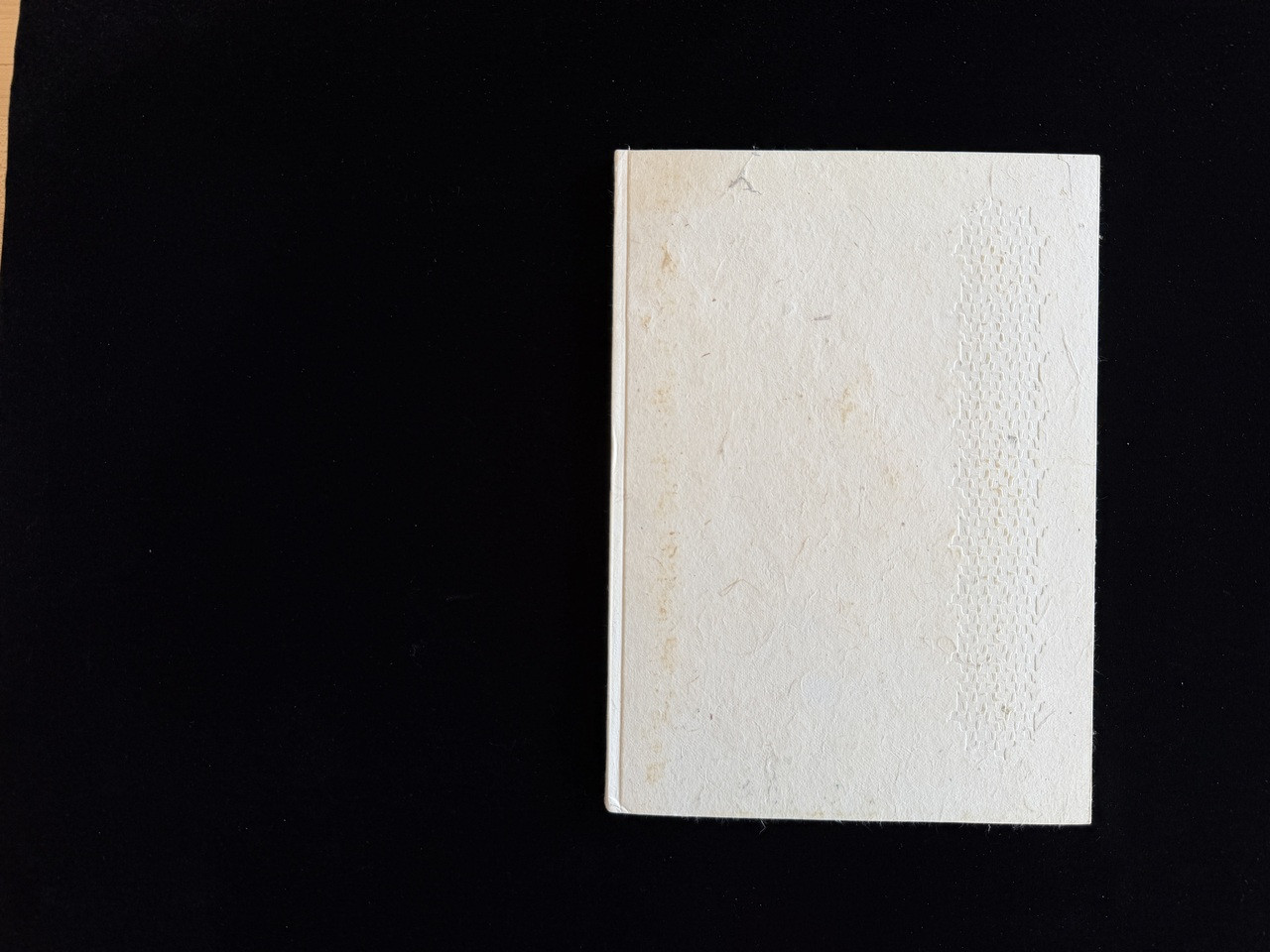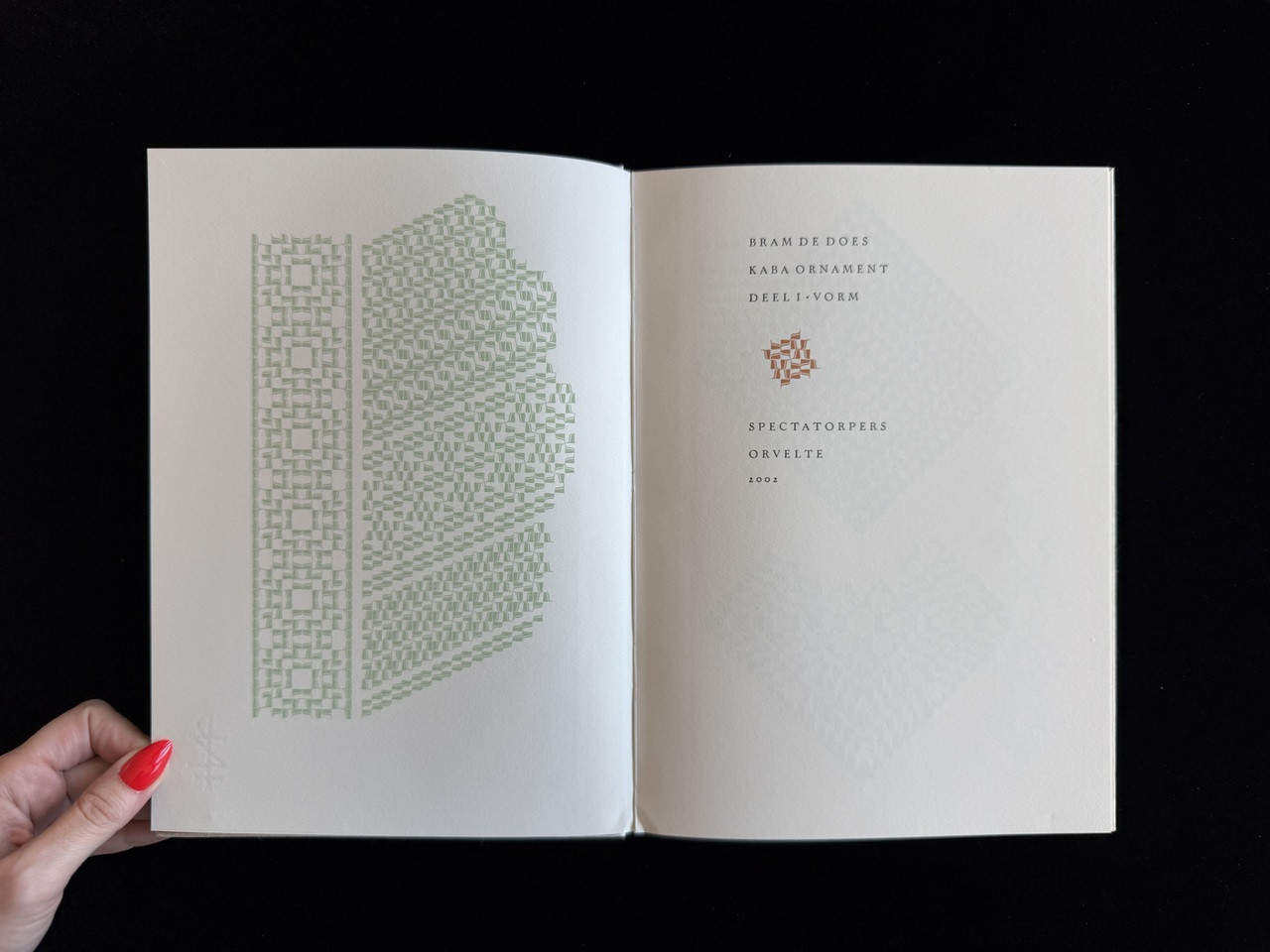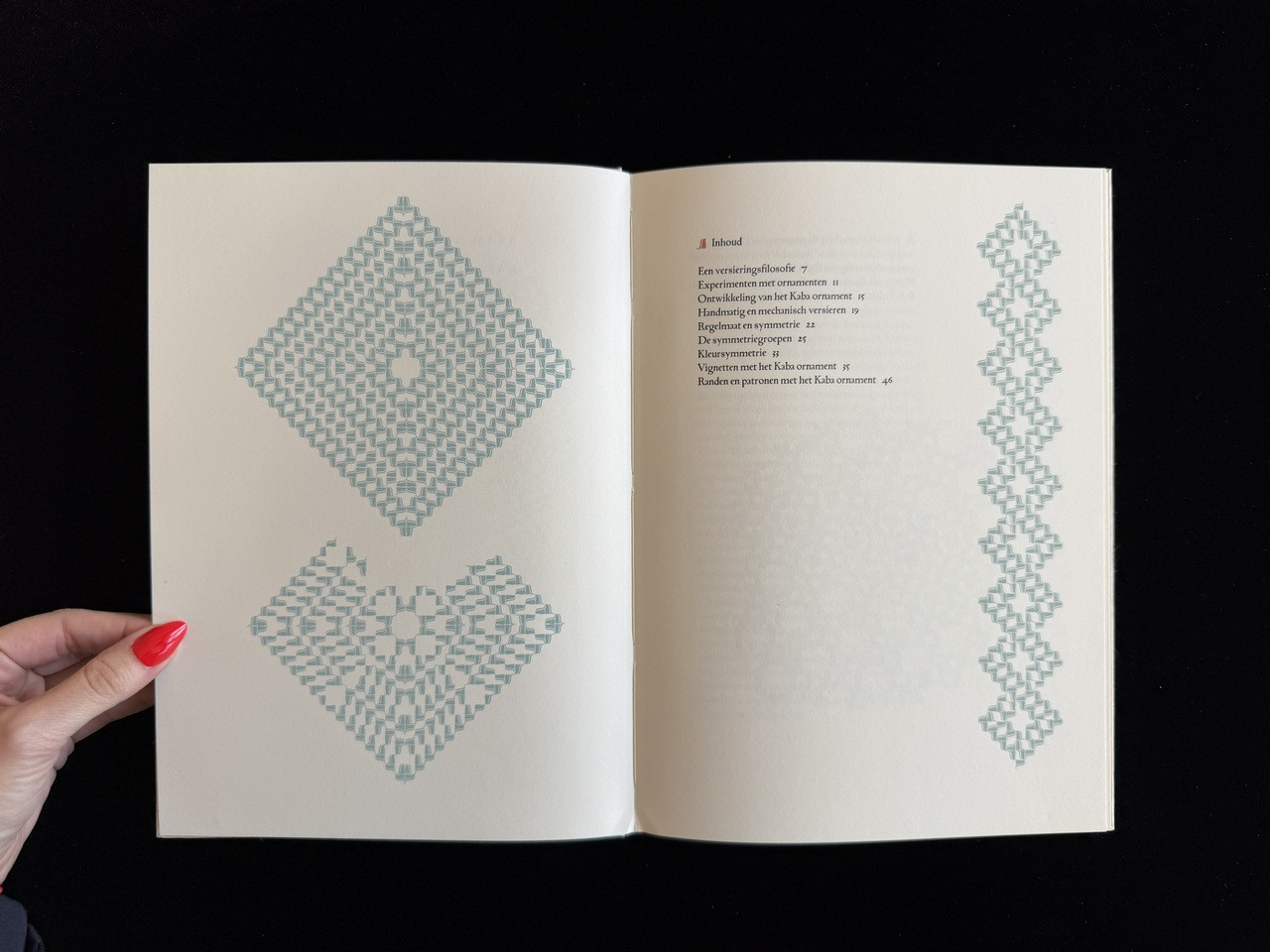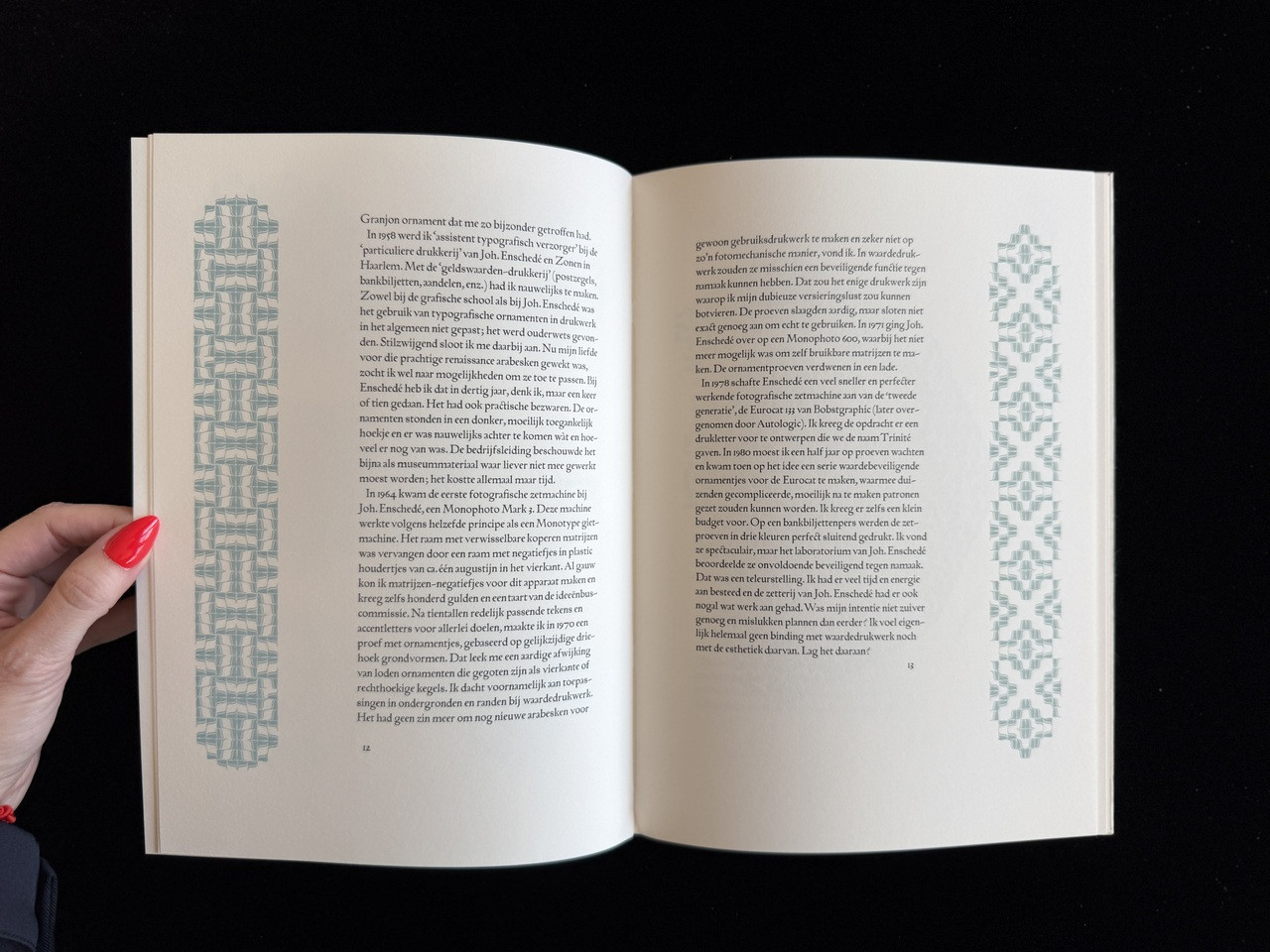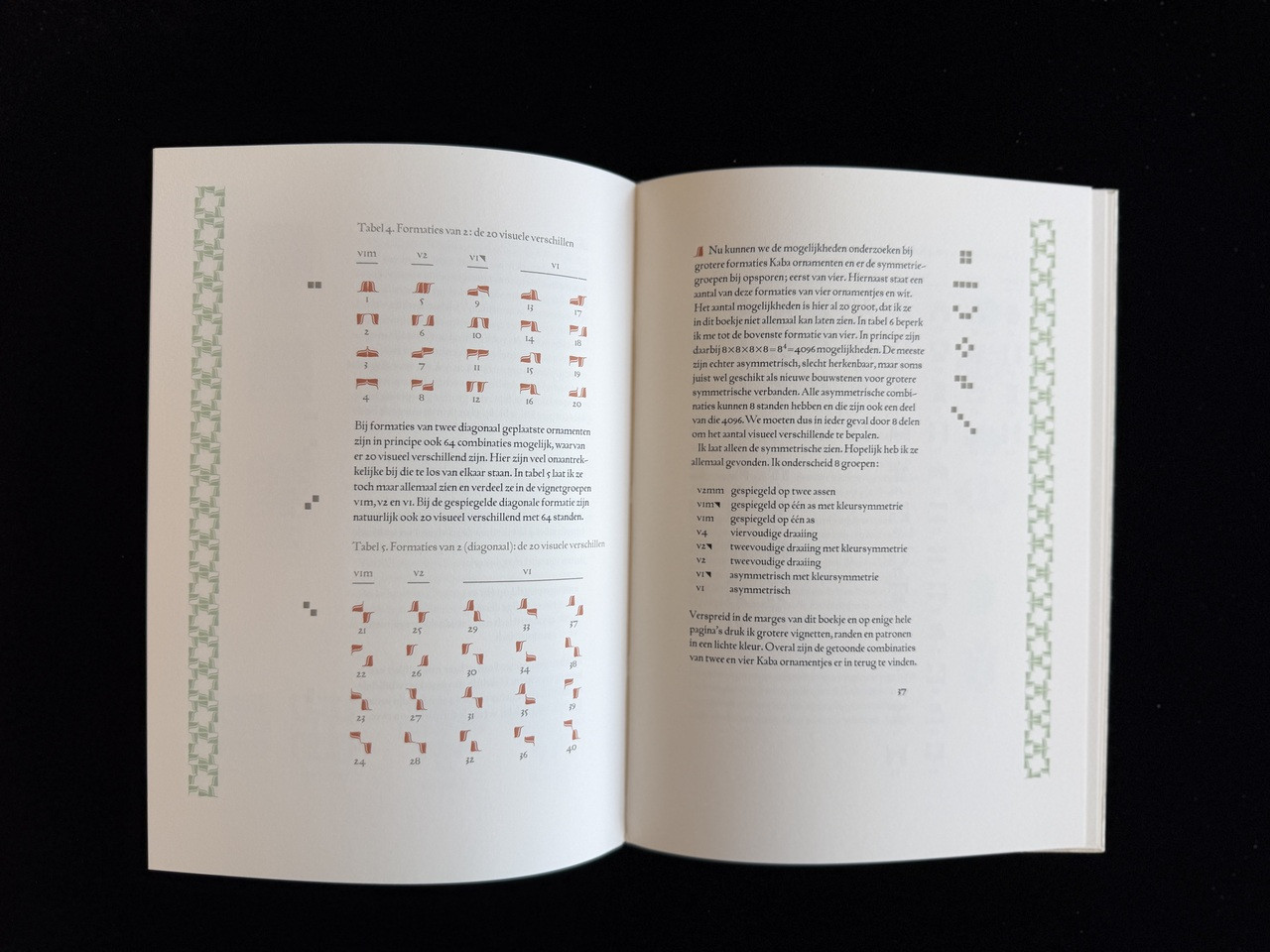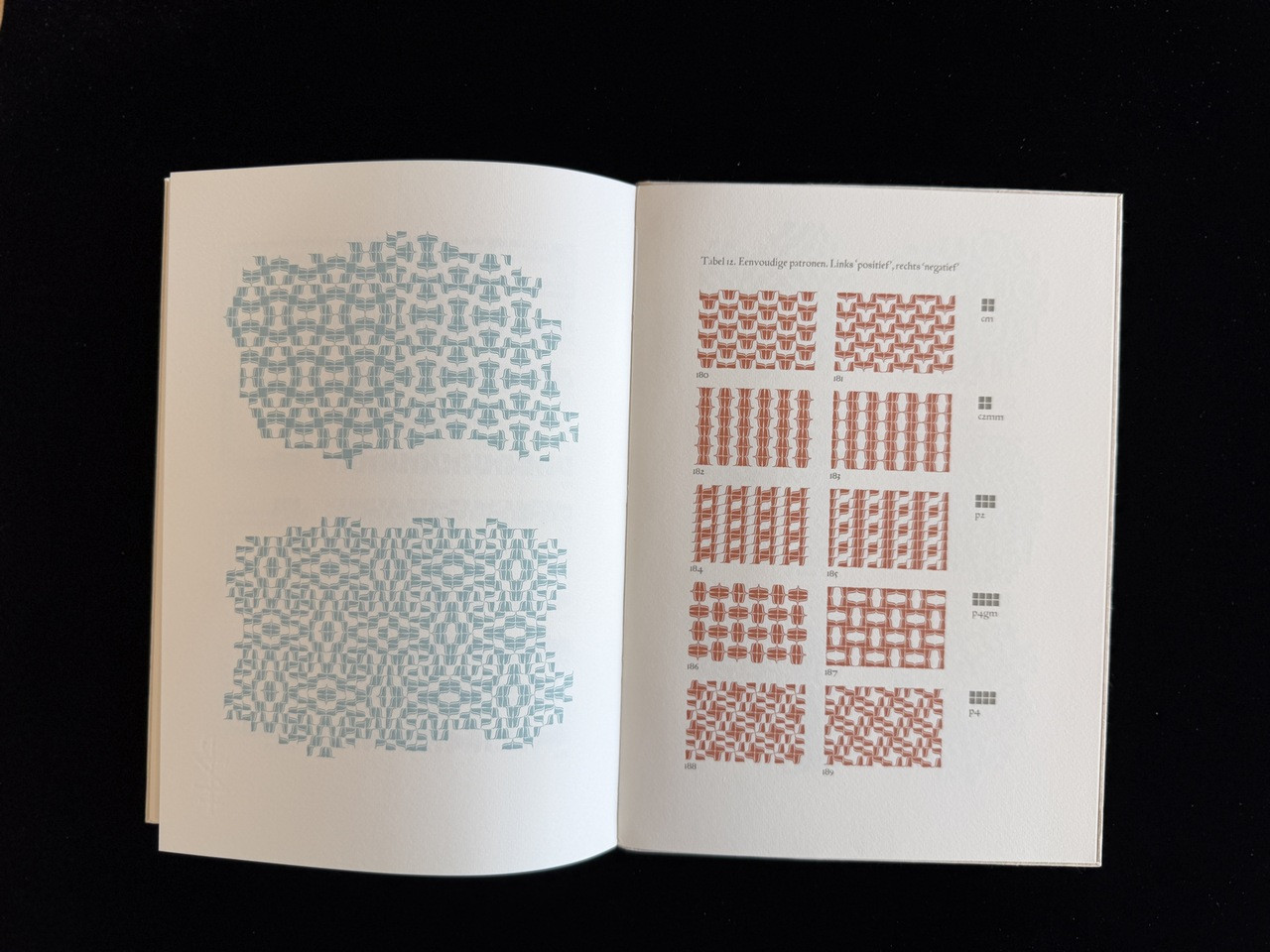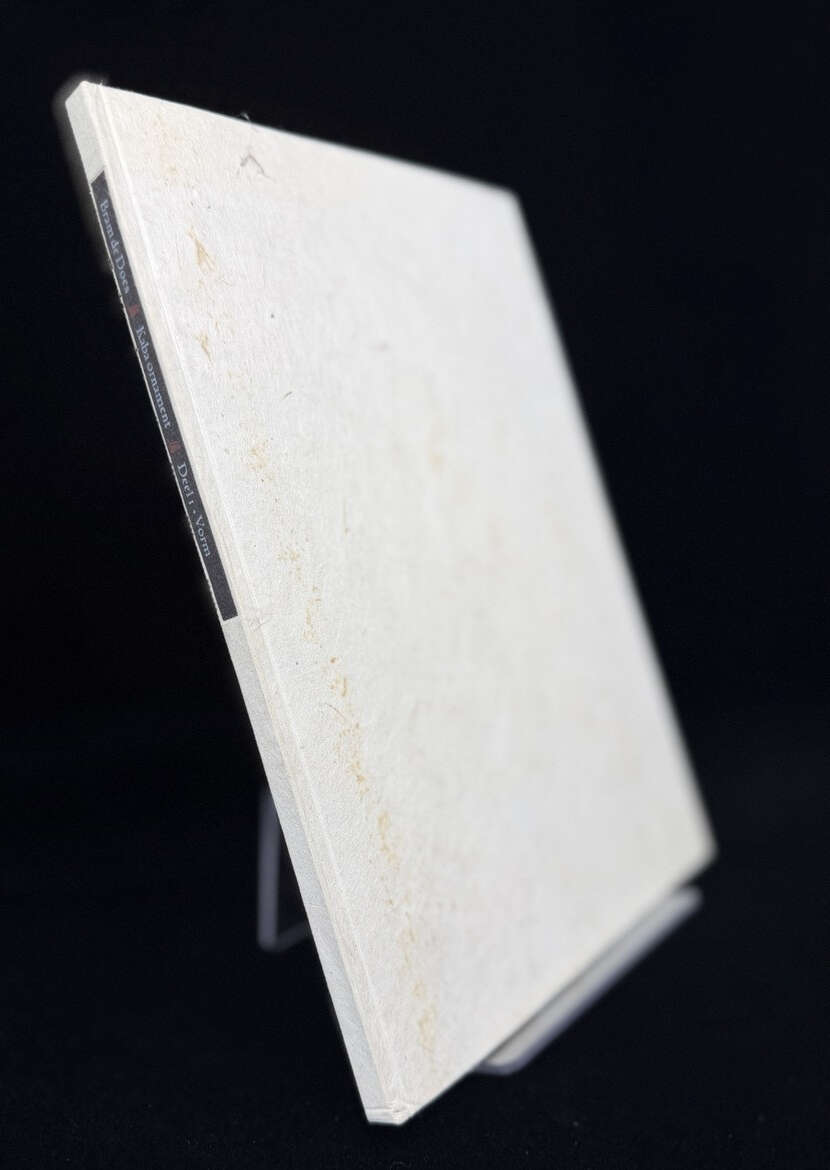
De Does’s tour de force, showing the incredible range and versatility of a single Islamic-inspired ornament when replicated, rotated, and arranged.
Bram de Does, Kaba Ornament, Deel 1–Vorm, Spectatorpers, Orvelte, 2002.